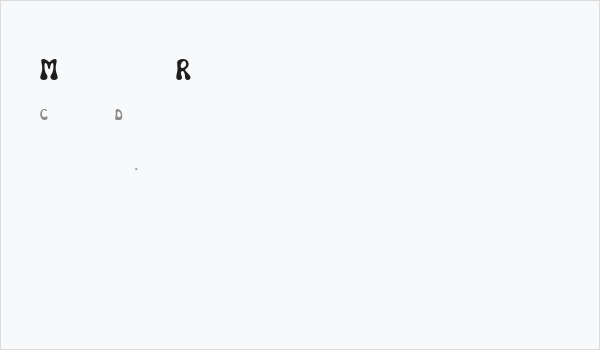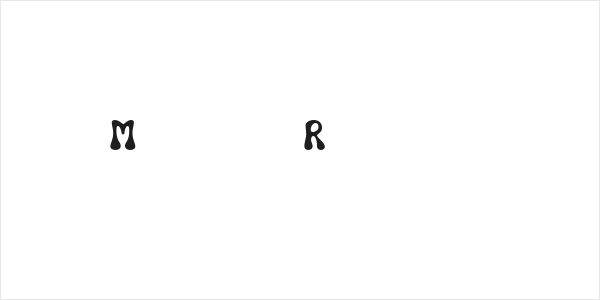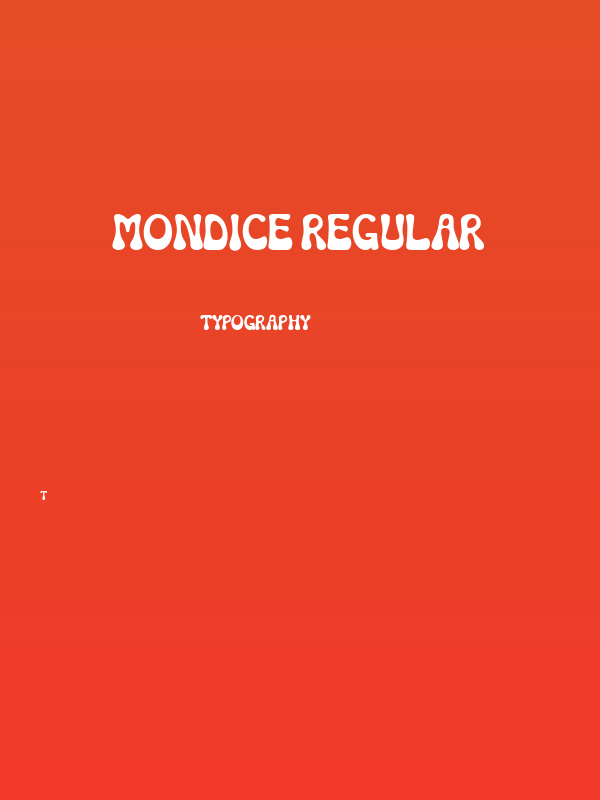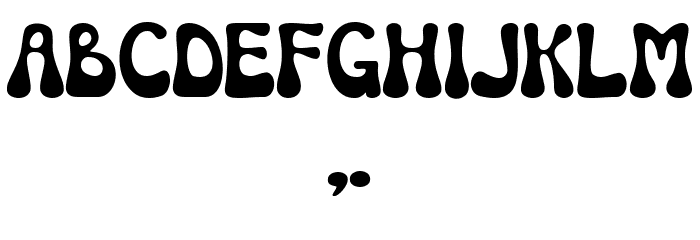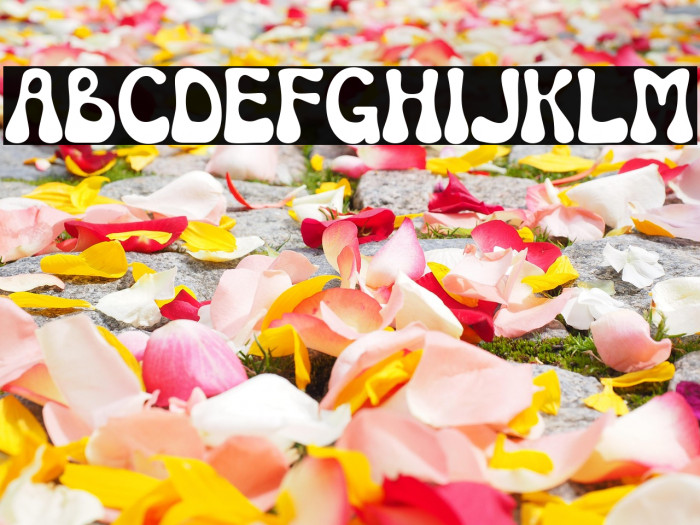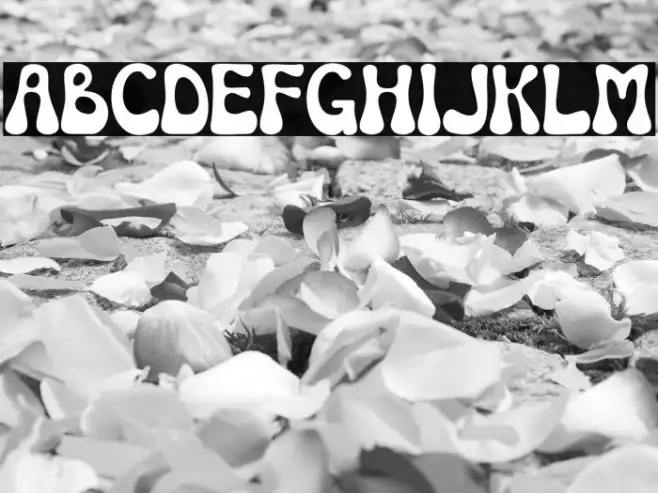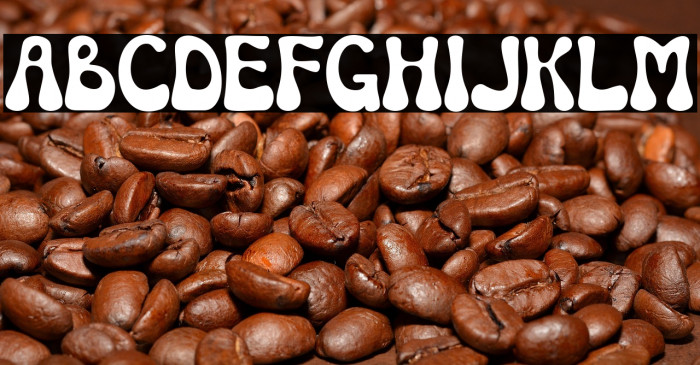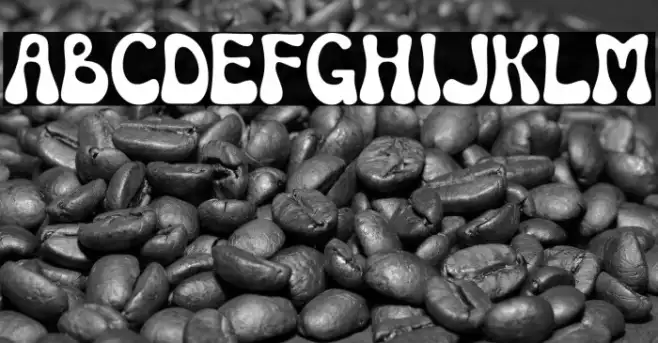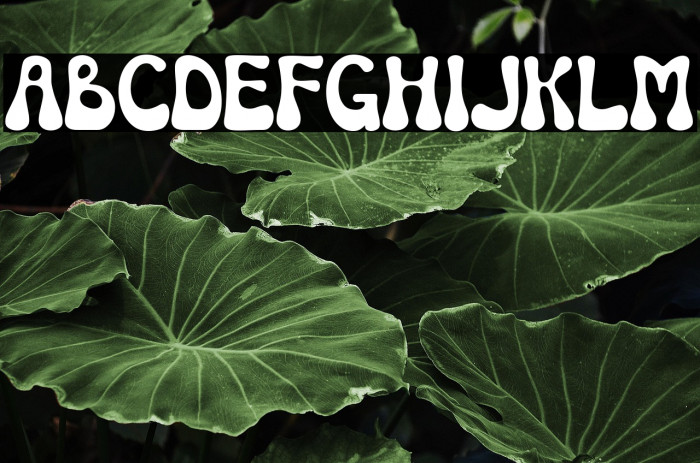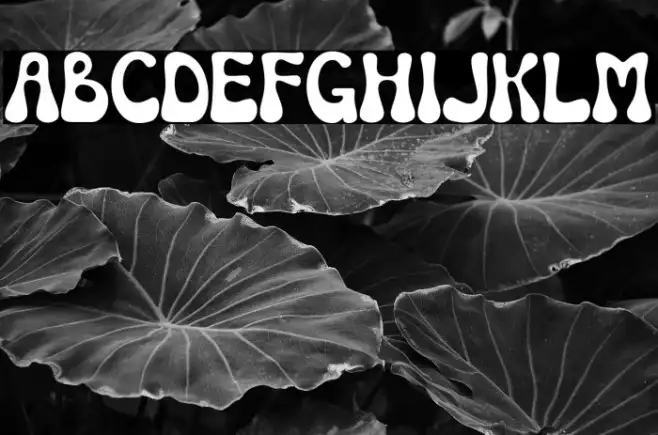
Mondice Regular Font
Mondice Regular Description
This font features a playful and bold design with rounded, bulbous letterforms that create a sense of whimsy and fun. The characters have a unique, organic shape with varying thickness, giving them a lively and dynamic appearance. The overall style is reminiscent of retro or psychedelic designs, making it stand out with its distinctive look. The font maintains a consistent baseline, but the irregularities in the letter shapes add to its charm. It's well-suited for creative projects that require a touch of personality and flair.
| Overall Style | Retro, Playful |
| Proposed Projects | Ideal for posters, album covers, children's books, and branding that requires a fun and distinctive look. |